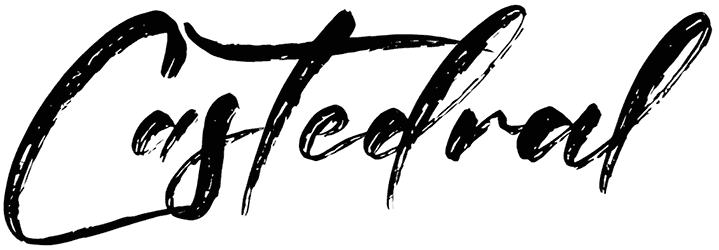
Castedral Font
If you have never experienced the joy and creative freedom of arranging font characters, you should try Castedral. This brush font has features such as fading, brush strokes, shadows, and imperfections to add something new and different to your creations.
The natural connections in this adventure font harm its readability, but it can still play an influential role in making posters, invitations, and personal writings attractive.